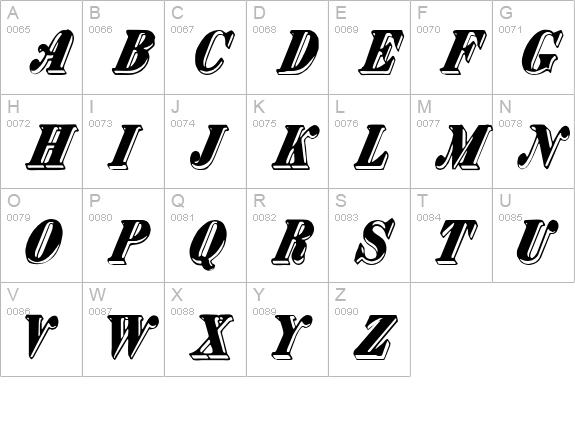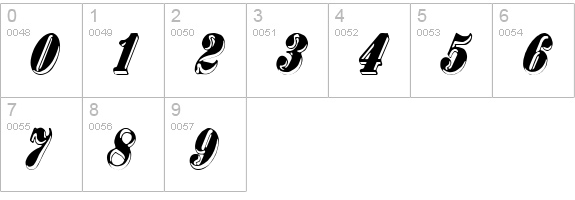
Bank Note font is a classic and elegant typeface that exudes sophistication and professionalism. Its sleek and refined design makes it perfect for a wide range of projects, from business cards to invitations to branding materials. The font features clean lines and sharp edges, adding a touch of modernity to any design. What sets Bank Note font apart is that it is completely free to download. You can easily access this high-quality font at FontsMarket.com, making it a convenient and cost-effective choice for designers and creatives looking to elevate their projects. With its versatility and timeless appeal, Bank Note font is sure to make a statement and leave a lasting impression. Download it today and see for yourself the impact this font can have on your designs.